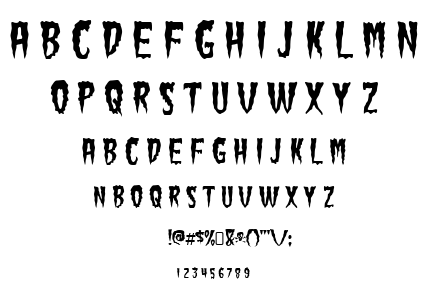
Green Fuz is a gruesome font inspired by American horror comics of the 1950’s. Don’t forget to read the files inside the zip for details. Updated in 2012.